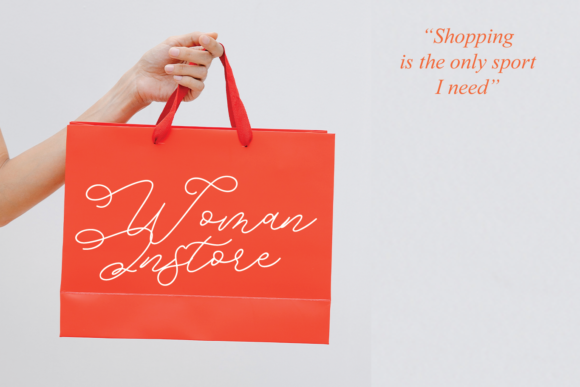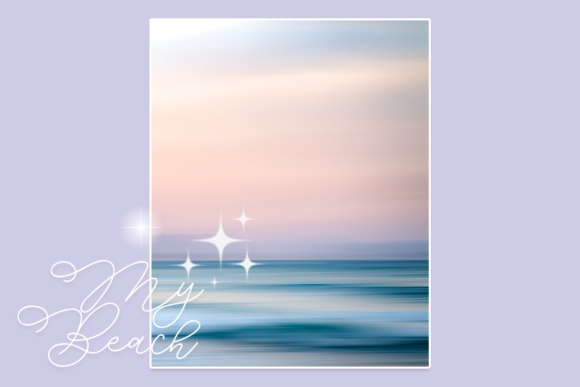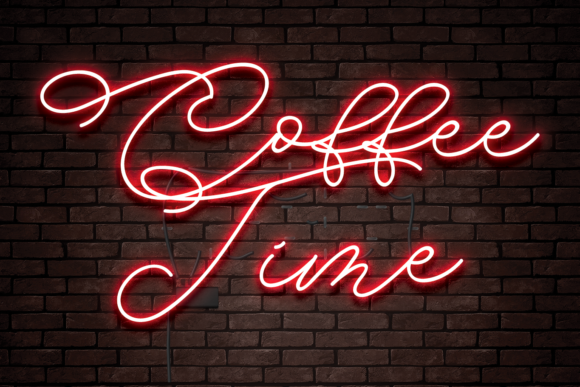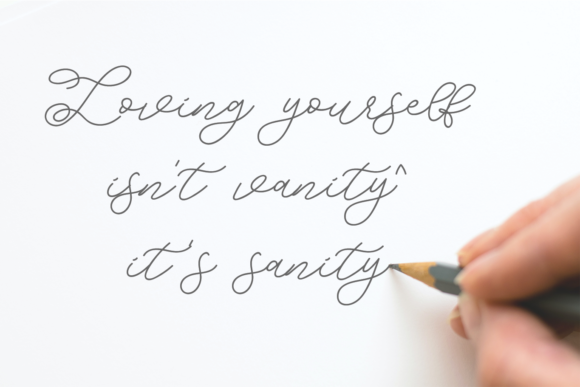
Magic Romance Font
About Magic Romance Font
Magic Romance is a lovely and timeless handwritten font. It is the best choice for creating eye catching logos, branding and quotes. Every letter has a unique and beautiful touch, which will make your design come alive!